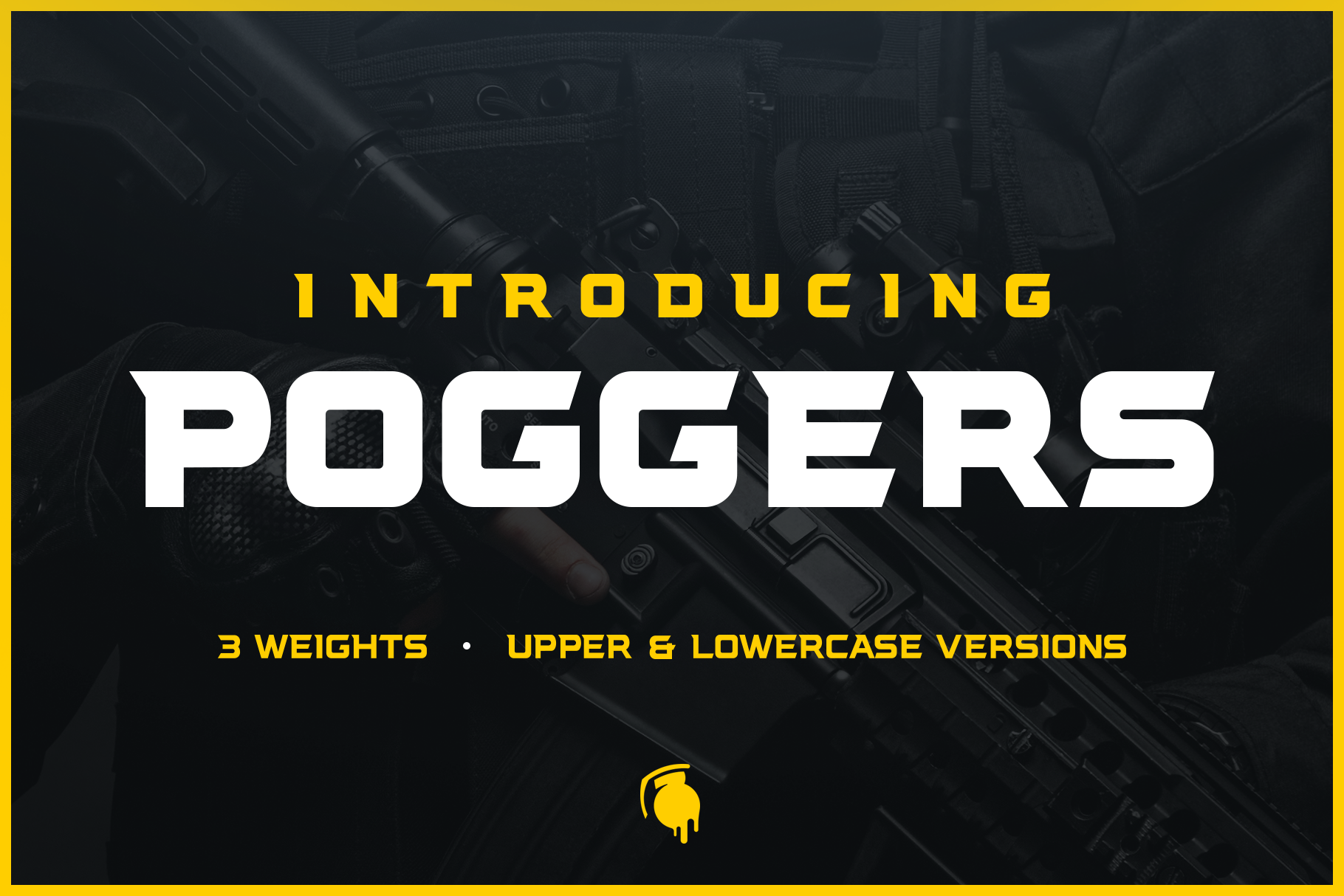
Poggers Font by Creative Grenade
Poggers is a sharp typeface designed by Creative Grenade to bring an intense impact to your next project. Designed with precision, Poggers Gaming Font includes:
3 Weights
- Poggers Light
- Poggers Regular
- Poggers Bold
Upper and Lowercase
Uppercase features the tapers for a sharp look. Lowercase removes tapers for a clean style. Combine these font styles to fit your project needs.
Poggers is a sharp font, perfect for any epic project including:
- Gaming Logos
- Tech Posters
- Impactful Titles
- YouTube, Twitch, Facebook Streaming
- Website Headers